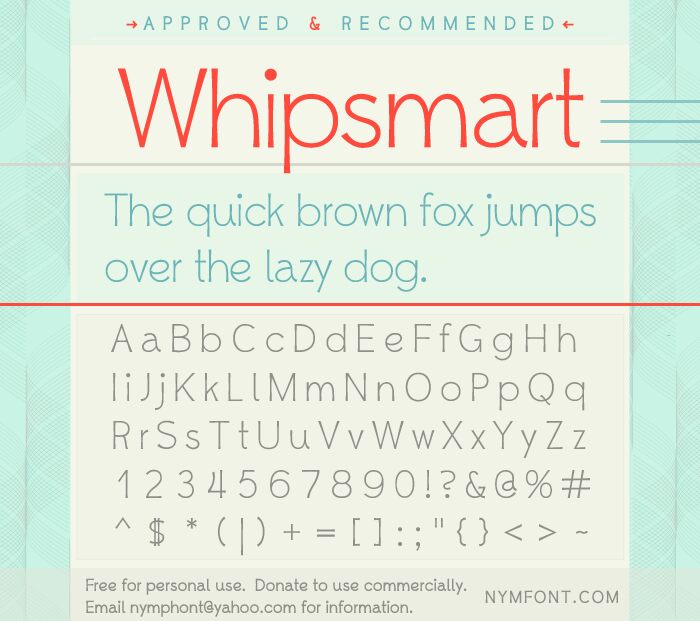
Whipsmart by Lauren Thompson is a free light sans serif whose tall proportions, hairline strokes, and abrupt changes in letter width create an elegant but slightly eccentric silhouette. The rounded forms stay open and spare.
Its fine linear drawing has much in common with minimalist fashion sketches, making it a natural fit for magazine covers, cosmetics packaging, and boutique branding. Those same elongated forms can also lend a refined, unconventional voice to gallery posters and cultural event graphics. Editorial display is its strongest use, especially when the lettering needs to feel distinctly sophisticated without settling into a conventional geometric sans.
Whipsmart
Lauren Thompson (Nymphont/NymFont)
A playful and inviting hand-tooled sans serif that doesn't take itself too seriously while simultaneously maintaining it's delightful and exacting asthetic.